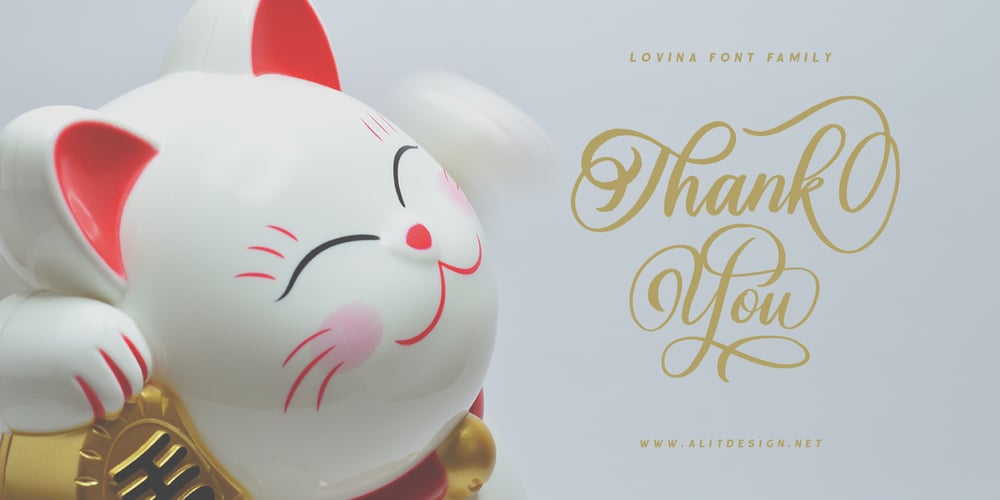
Lovina Script Font Family was designed by Alit Suarnegara and published by Alit Design. Lovina Script contains 3 styles and family package options. Lovina Script is our first font in 2019 and has a handwritten script style with a touch of natural rough from the shape of the brush. For Scripts, Lovina fonts have 2 choices namely “Lovina 1” and “Lovina 2” and in this font script there are many alternative choices of characters from Swash Lowercase, SS01 to SS06. Lovina Script is very worthy of being the newest collection in 2019 as a project design creation, social media quote, badges, logotype, fashion design etc.